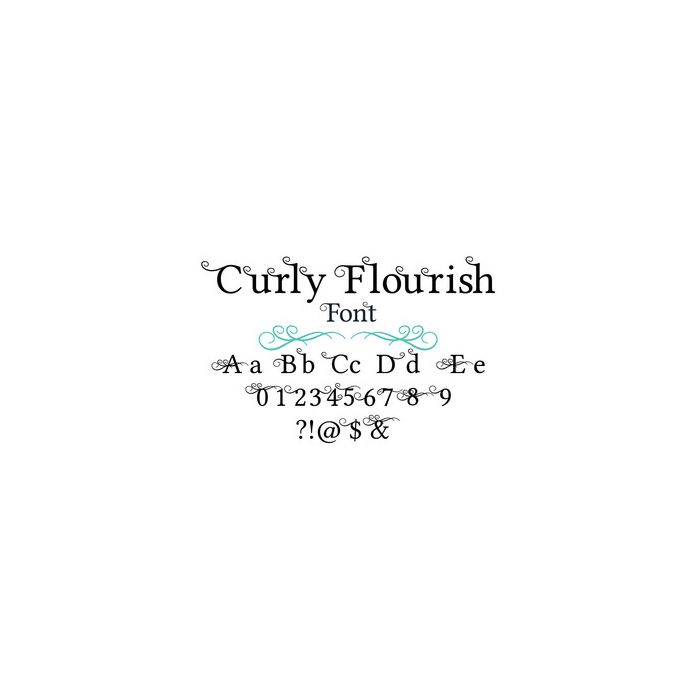
Curly Flourish Font. Hand drawn font, including upper and lower case letters, numbers and glyphs. (Kerning may need adjusting) For more design ideas, coordinating designs & products and inspiration, please visit my blog http://www.sarahhurleyblog.com